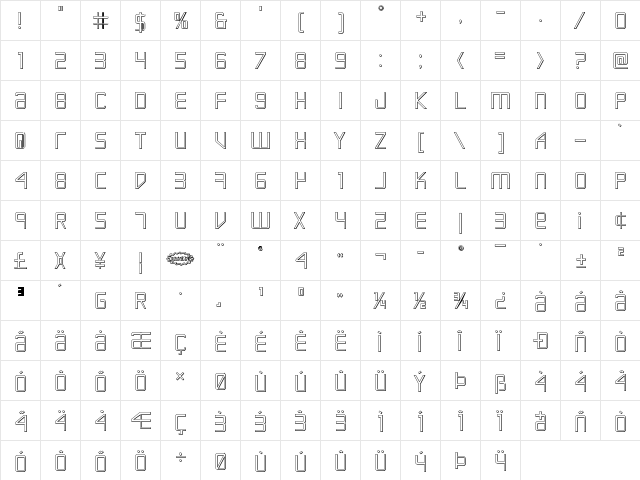
Escape Artist 3D Regular Font Preview
Escape Artist 3D Regular
Escape Artist 3D Regular Font Details
Design Context for Escape Artist 3D Typeface
Escape Artist 3D is a composed and adaptable typeface that performs quietly and consistently across a wide range of design contexts.